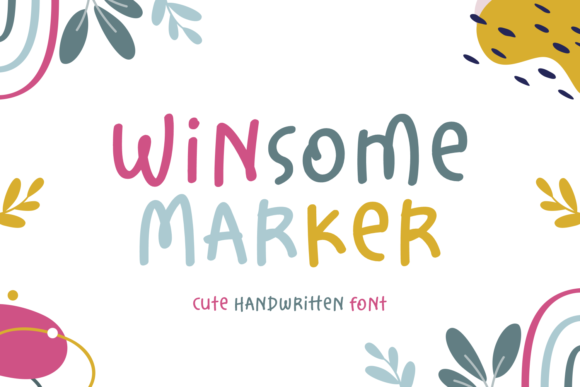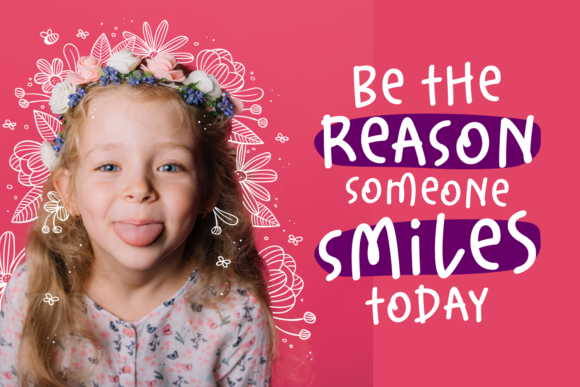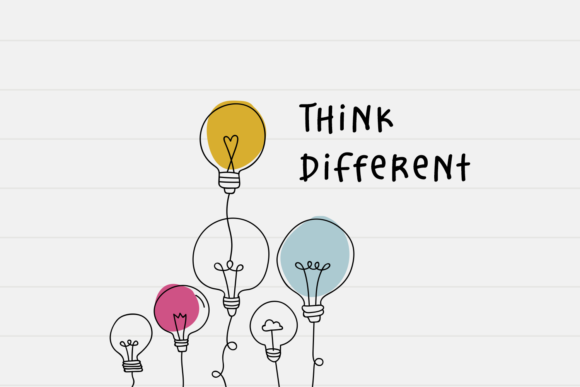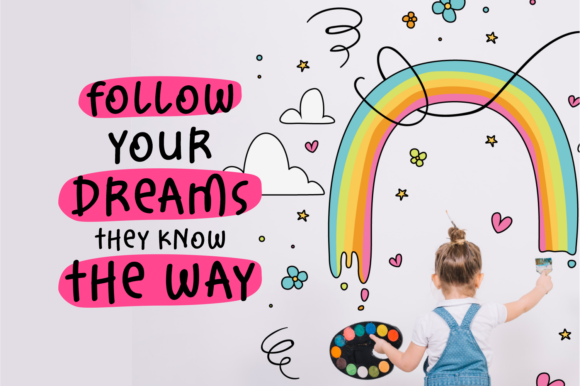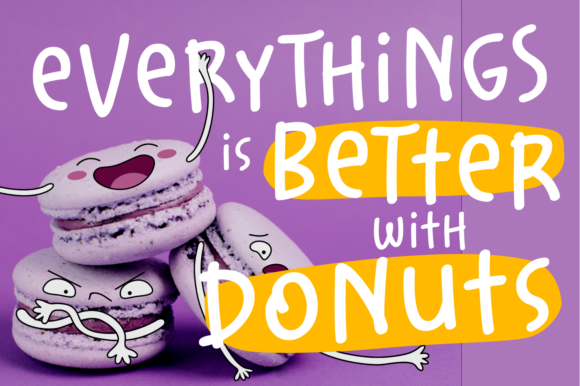
Winsome Marker Font
About Winsome Marker Font
Winsome Marker is a sweet and quirky handwritten font. Its natural and unique style makes it incredibly fitting to a large pool of designs. The only limit is your imagination!